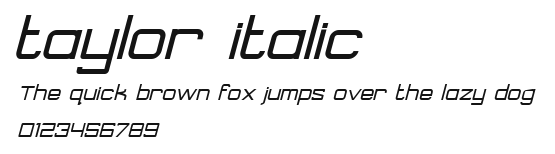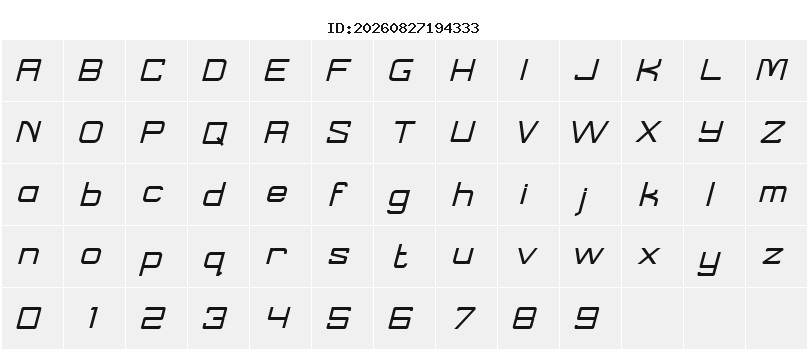
taylor italic Preview
About taylor italic.ttf
taylor italic.ttf is a modern, elegant sans-serif font designed for ultimate readability and visual harmony. Perfect for branding, headlines, web design, and print materials.